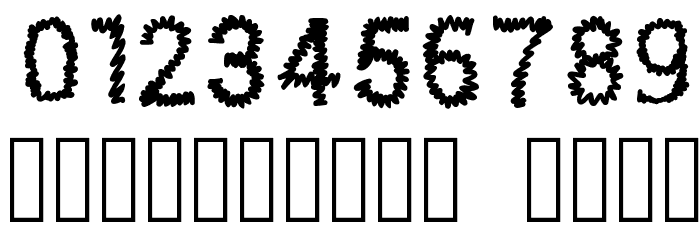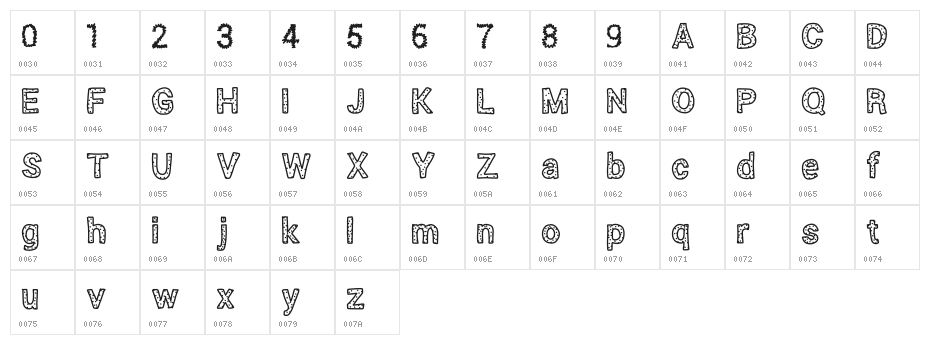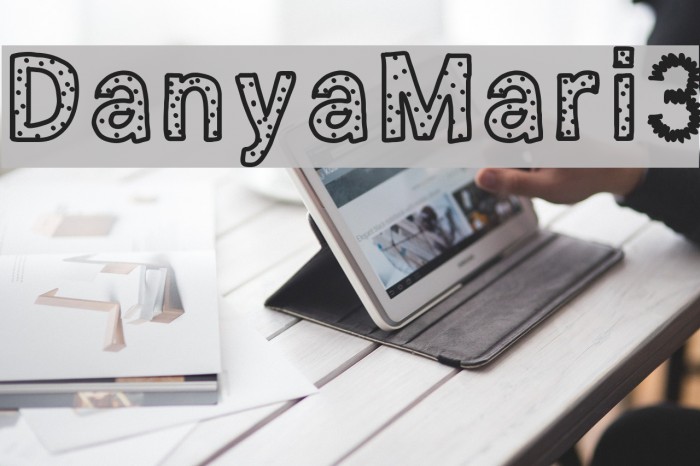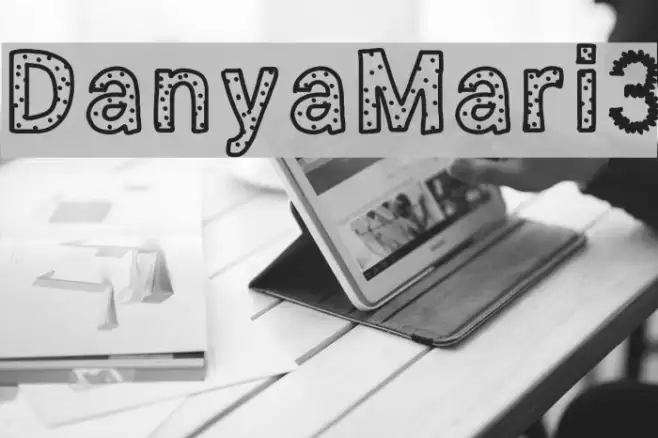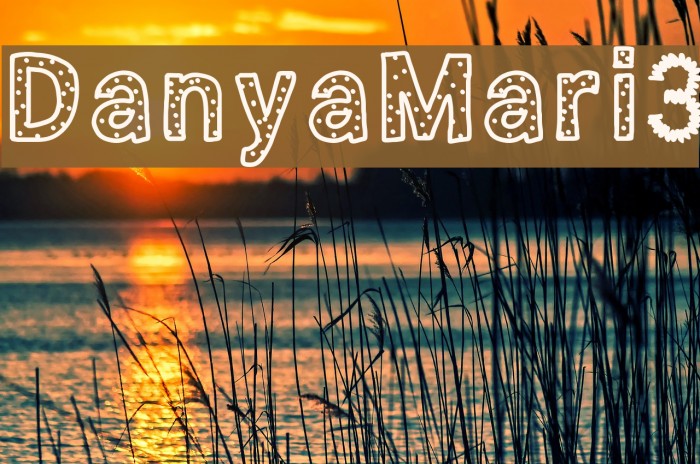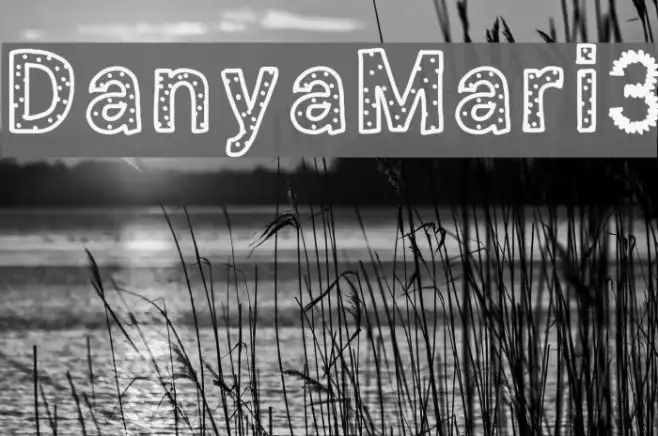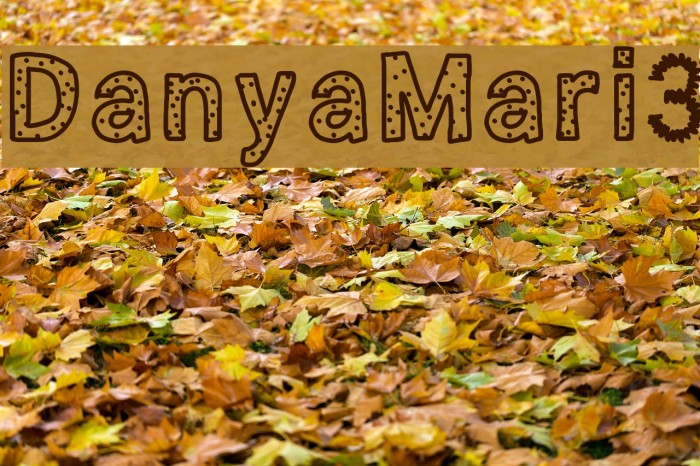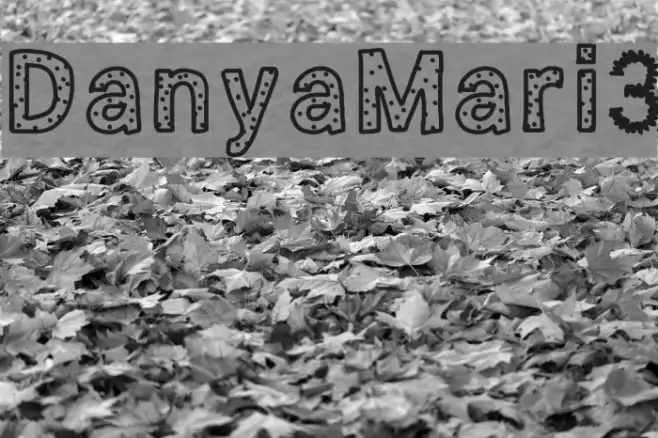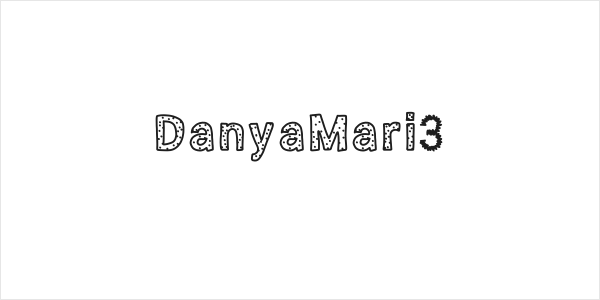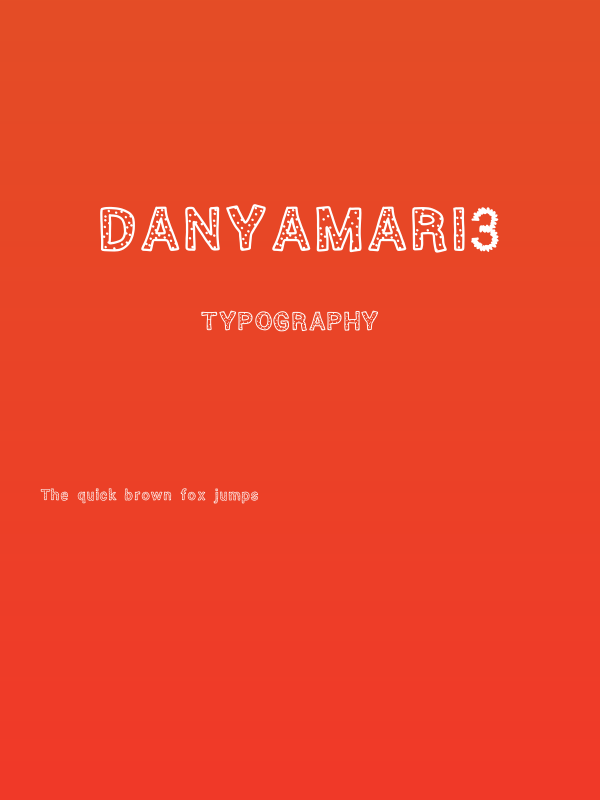
DanyaMari3 Font
DanyaMari3 Description
This font features a playful and decorative style, characterized by its dotted pattern within each character. The uppercase and lowercase letters maintain a consistent design, with rounded edges and a whimsical appearance. The numbers follow the same decorative theme, adding a unique flair to any text. The special characters are represented by bold, blocky shapes, enhancing the font's overall playful and artistic vibe. This font is ideal for projects that require a fun and engaging aesthetic.
| Proposed Projects | Ideal for children's books, playful invitations, greeting cards, and creative branding projects. |